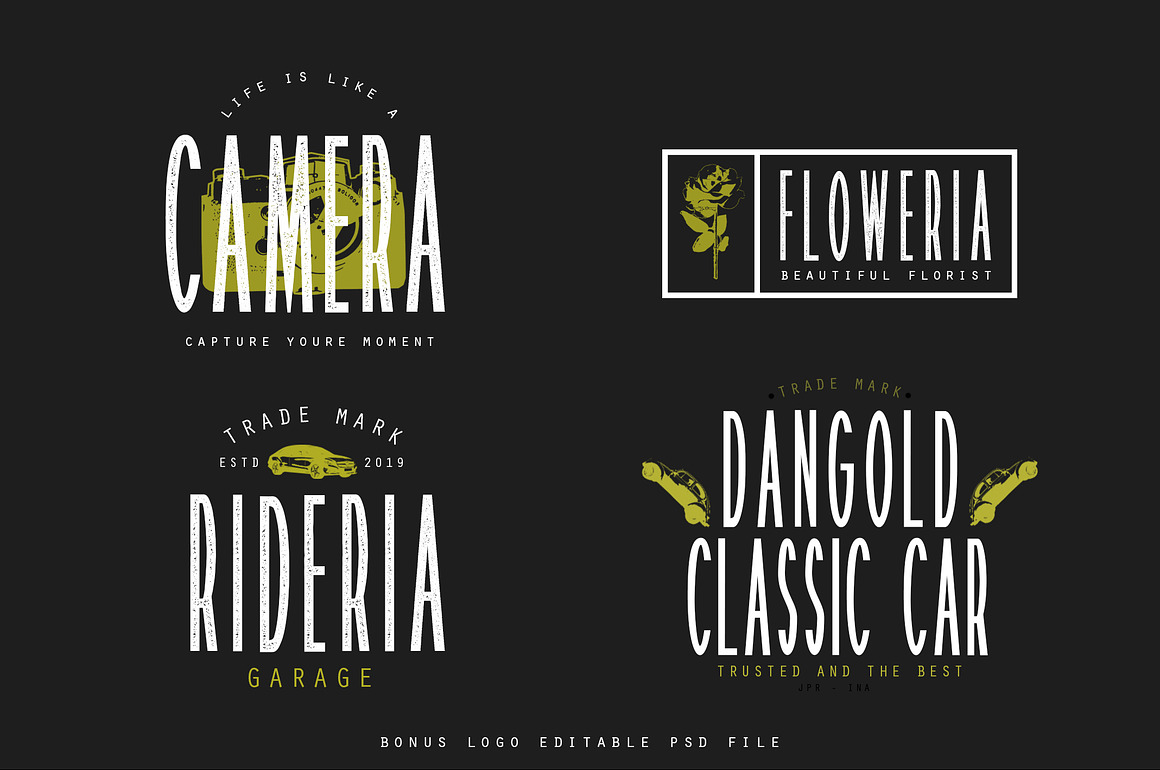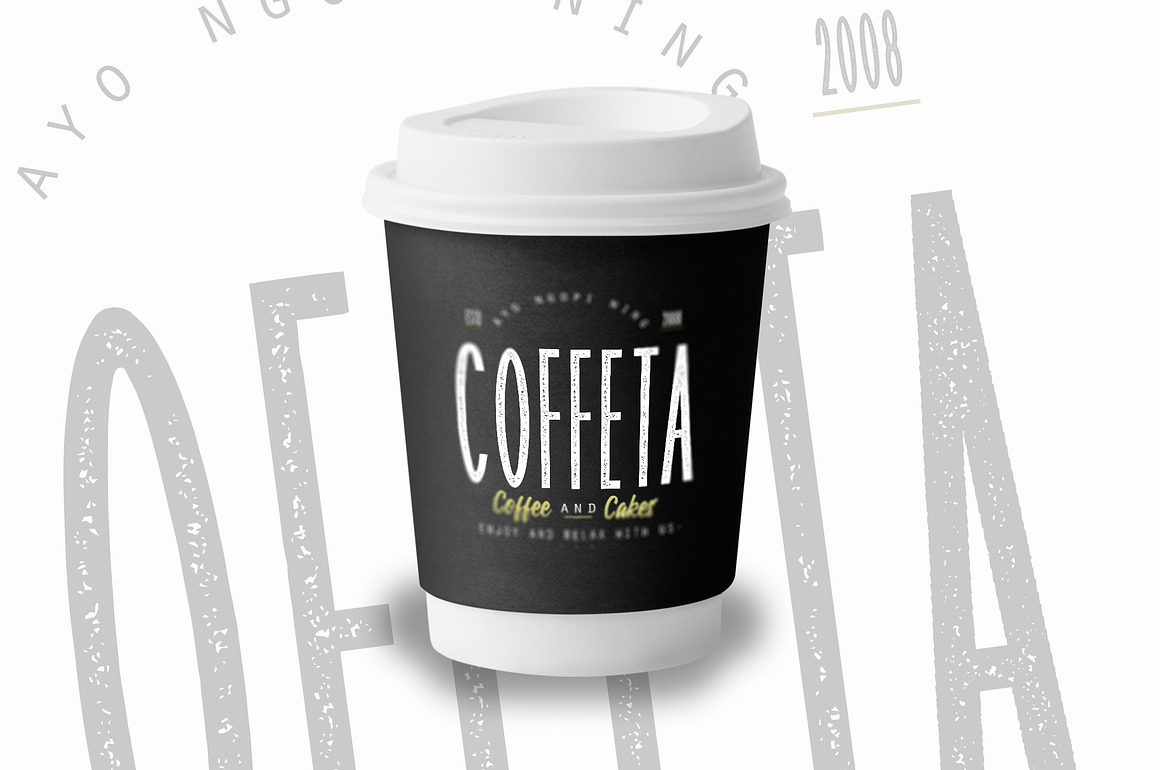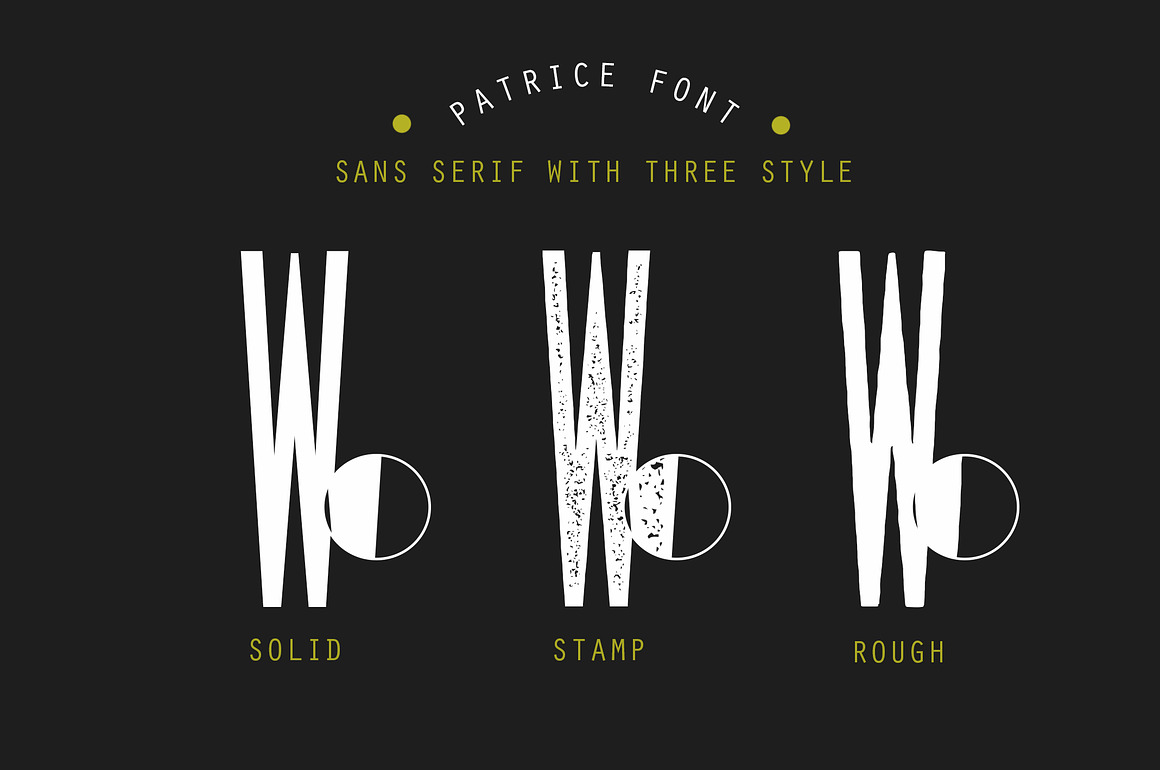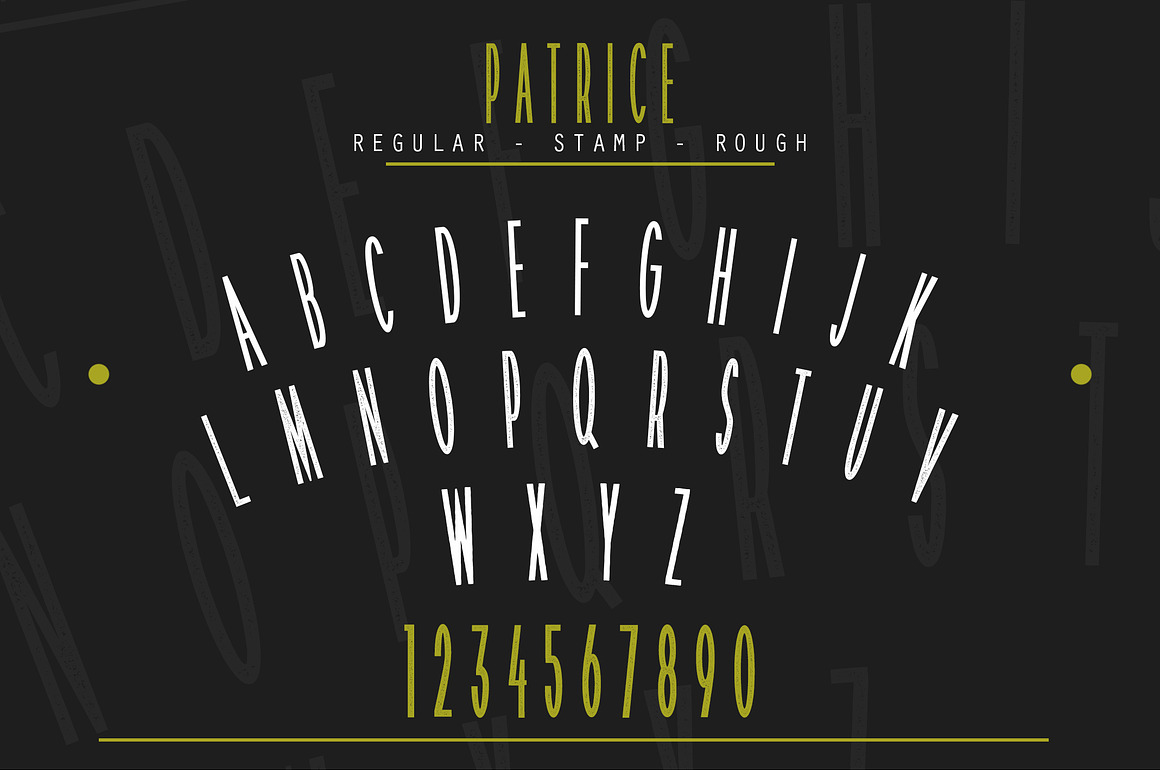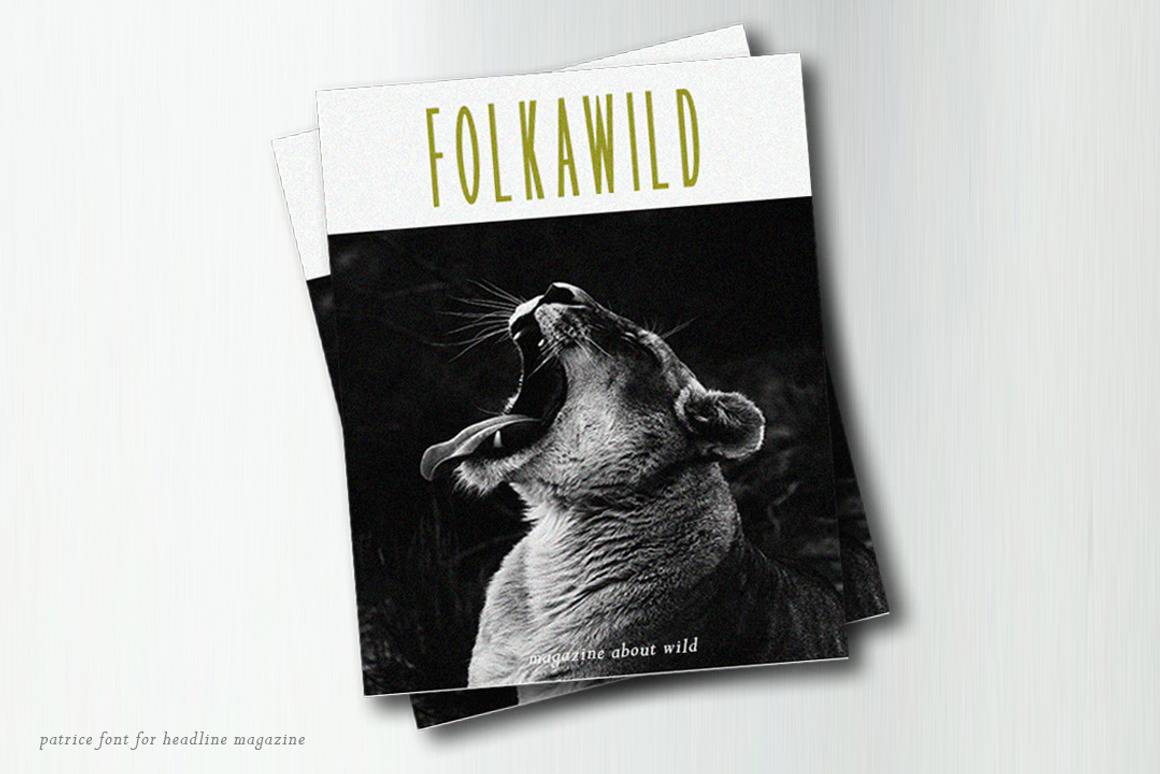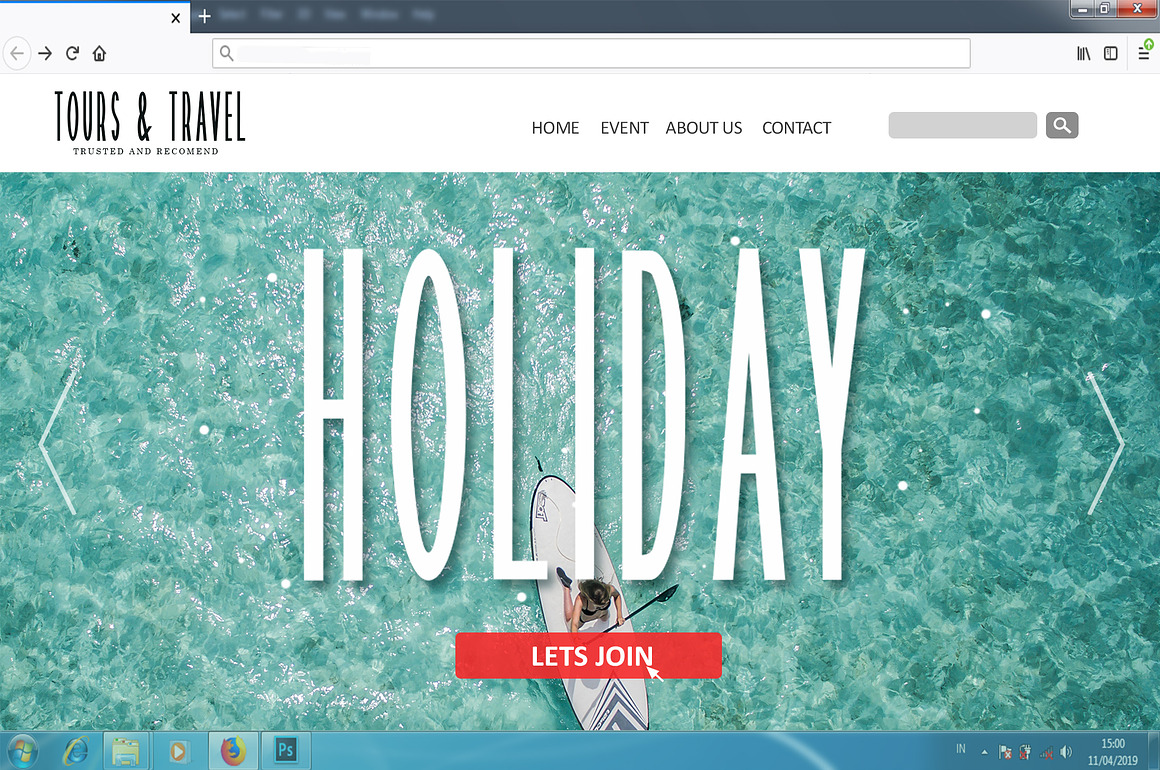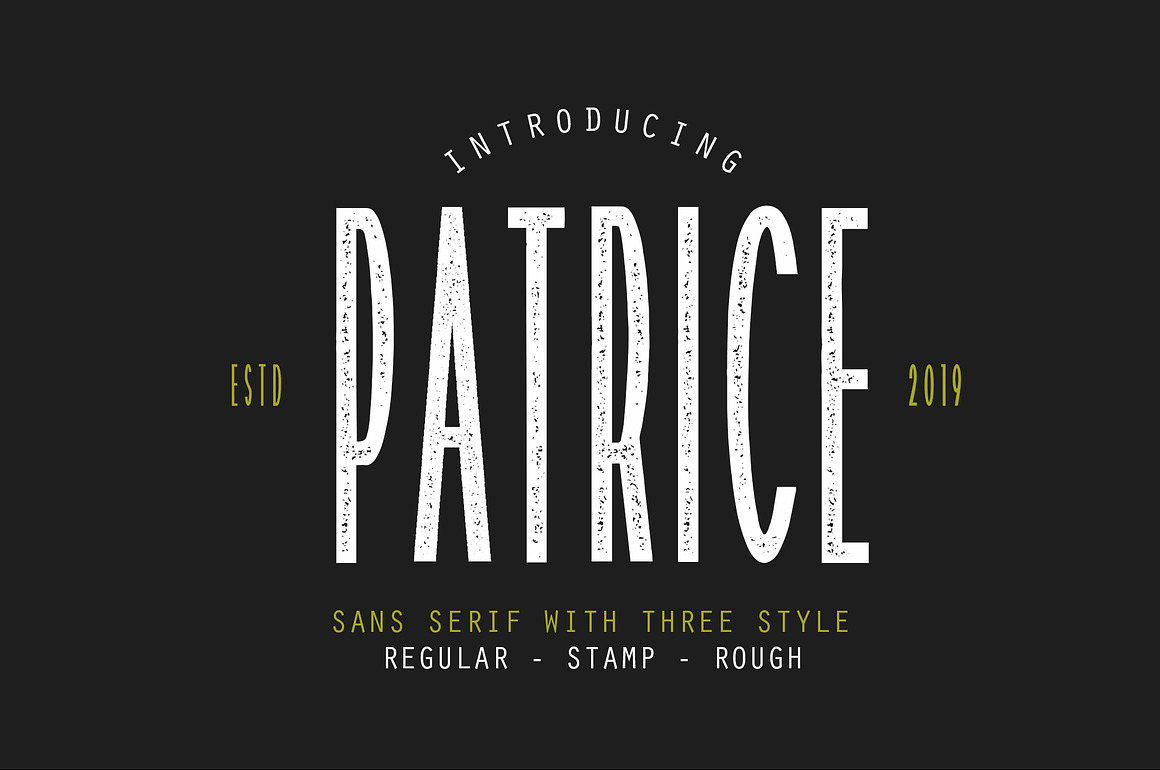
Patrice | Sans Serif Font
This Patrice Sans Serif Font is perfect for elegant personal branding, sophisticated fashion labels, refined beauty salon materials, upscale boutique signage, luxury lifestyle communications, graceful wedding invitations, chic art gallery exhibitions, premium feminine brands, distinguished professional services, and sophisticated cultural applications.
What makes this Patrice Sans Serif Font exciting is its refined sophistication that captures the graceful elegance and timeless class of French-inspired sophistication and feminine excellence. The font features polished letterforms with elegant characteristics that convey sophisticated refinement, cultural grace, and feminine strength. Its distinguished character and elegance-inspired design make it ideal for brands seeking to communicate refined luxury, feminine sophistication, and cultural excellence in fashion and lifestyle markets.
The Patrice Sans Serif Font family includes thin through bold weights with elegant alternates, sophisticated variants, and refined flourishes. This comprehensive sophisticated font family provides designers with graceful typographic tools to create elegant compositions while maintaining the refined character essential for luxury brands and sophisticated communications.
Fashion brands and luxury businesses consistently choose Patrice Sans Serif Font Free Download for projects requiring authentic sophisticated appeal and feminine elegance. This font's distinctive refined character perfectly captures the cultural sophistication and elegant excellence that resonate with audiences who appreciate French elegance, feminine strength, and brands that embody sophisticated luxury and refined taste.
The graceful construction of Patrice Sans Serif Font showcases elegantly designed letterforms with sophisticated proportions that ensure exceptional refinement across all luxury applications. Its polished appearance and elegant character create memorable impressions while maintaining the readability necessary for effective sophisticated communication and luxury materials.
Professional designers appreciate how Patrice Sans Serif Font brings immediate sophisticated authenticity and feminine elegance to brand communications. The font's refined nature allows organizations to communicate luxury excellence and cultural sophistication while maintaining the professional quality necessary for effective positioning in fashion and luxury lifestyle markets.
The timeless appeal of Patrice Sans Serif Font makes it particularly effective for brands emphasizing feminine sophistication, cultural elegance, and refined luxury. Its distinguished character resonates strongly with audiences who appreciate French culture, feminine empowerment, and brands that represent the graceful strength and sophisticated refinement of contemporary feminine excellence.
Whether developing branding for luxury fashion houses or creating materials for sophisticated lifestyle brands, Patrice Sans Serif Font Free Download provides the elegant typographic foundation that refined brands need to communicate their sophisticated excellence, feminine grace, and the cultural distinction that defines luxury fashion and sophisticated lifestyle achievement.